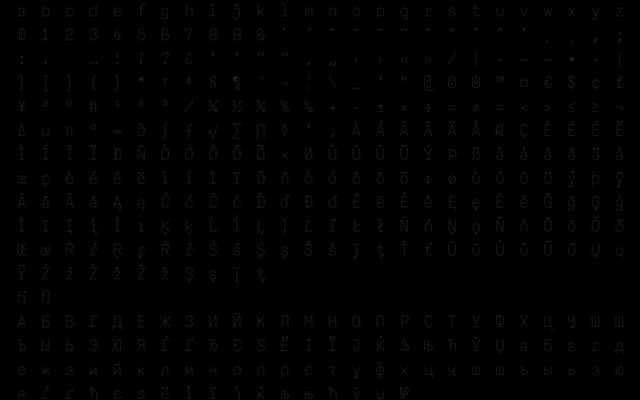
Septima
Radim Pesko · Radim Peško
A single-weight monospaced typeface with individually adjusted asymmetrical letterforms designed to maintain equal tone across the character set.
Each glyph in Septima is individually tuned to the space it occupies within its fixed-width window, a process Peško uses to balance visual tone and produce distinctive, recognisable forms. Available in one weight, the family supports twenty-three Latin and five Cyrillic languages, with the Cyrillic extension developed in collaboration with Roman Gornitsky. The typeface has seen editorial use at BBC News, where its idiosyncratic forms read well at headline scale.
Septima is explicitly described as a monospaced font with asymmetrical, individually adjusted letterforms, placing it firmly in the mono category with a grotesque character.